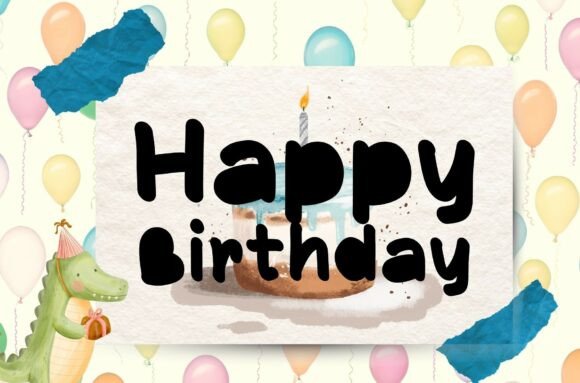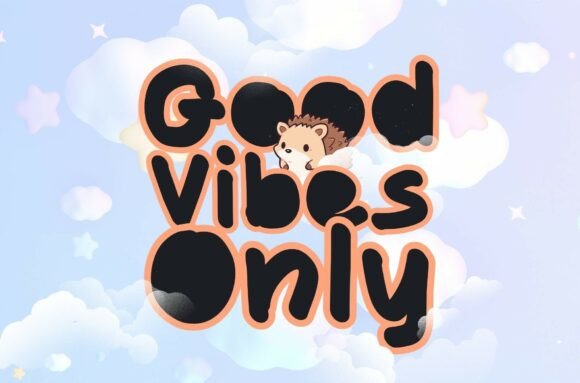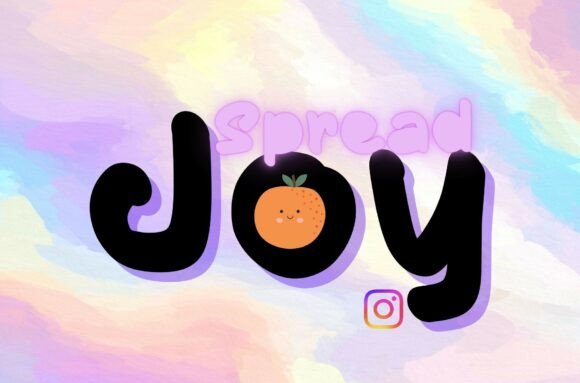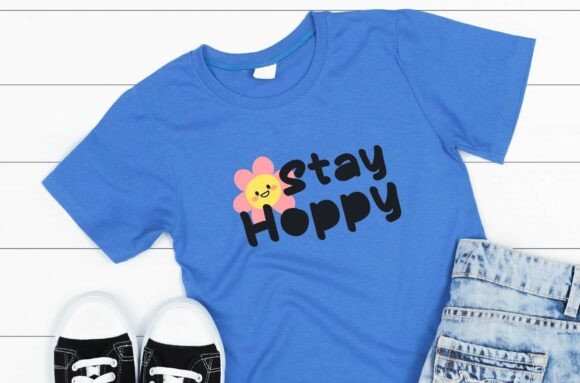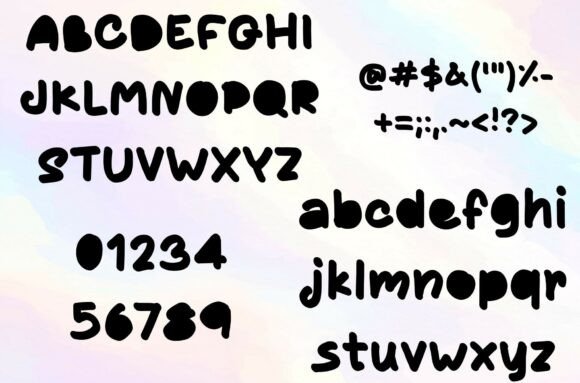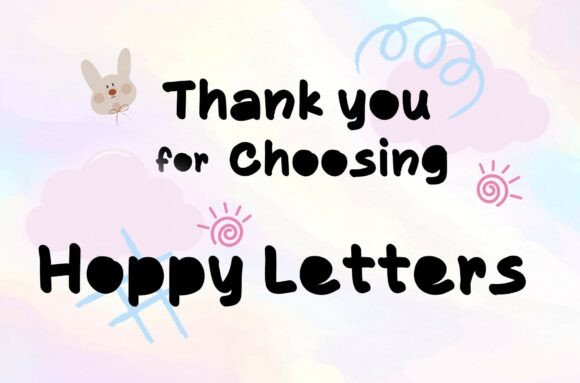
Hoppy Letters Font – Free Download
Introduction to Hoppy Letters Font
Hoops Letters is a sweet and friendly handwritten font.
Key Features of Hoppy Letters Font